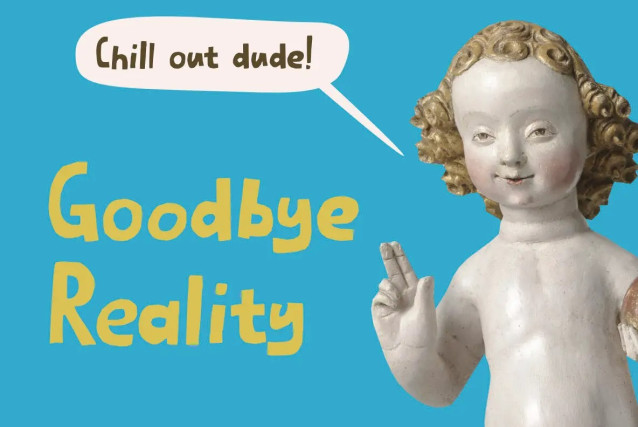
Goodbye Reality Font
Goodbye Reality Font is a font I made by hand (fact checked!), using a roller ball pen and rough paper (I have proof!), while enjoying several cups of home-made, organic latte (with real milk) and some biscotti my wife baked (I have witnesses…). Comes with extensive language support and a set of alternates for the lower case glyphs.